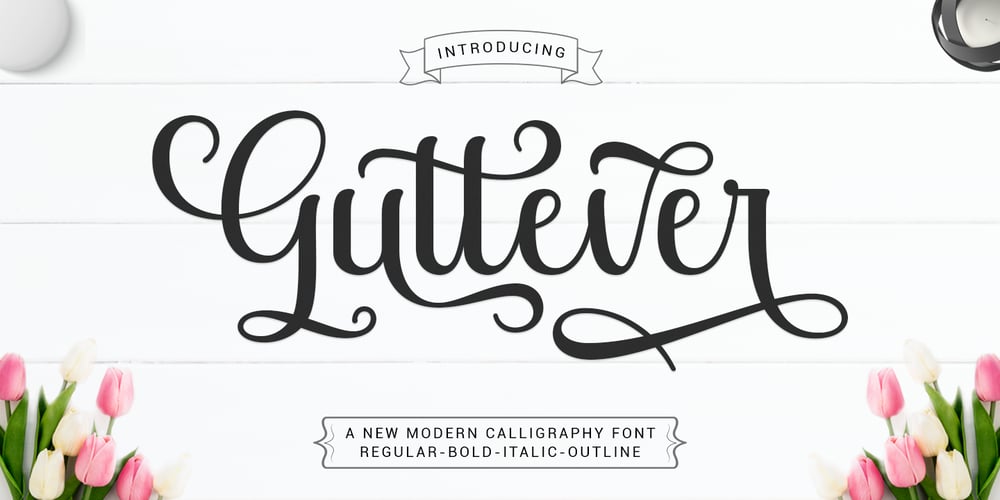
Guttever Font Family was designed by Mur Zani and published by Zane Studio. Guttever contains 4 styles and family package options. Introduce!Guttever is a beautiful handwritten font with a touch of love. Packed with 351 glyphs, it’s perfect for branding projects, homewares design, product packaging, use in business cards, invitation cards, etc. Simply as a stylish text overlay onto a background image or anything else that needs a touch of elegance.To enable the OpenType Stylistic alternative, you need a program that supports OpenType features such as Adobe Illustrator CS, Adobe Indesign & CorelDraw X6-X7, Microsoft Word 2010 or later.There are additional ways to swash, using Character Map (Windows), Nexus Font (Windows), Font Book (Mac) or a software program such as PopChar (for Windows and Mac).How to access all alternative characters, using Windows Character Map with Photoshop: https://www.youtube.com/watch?v=Go9vacoYmBwHow to access all the alternate characters using Adobe Illustrator:How to use the font style set in Microsoft Word 2010 or later:Thanks for checking! I really hope you enjoy it.Regards